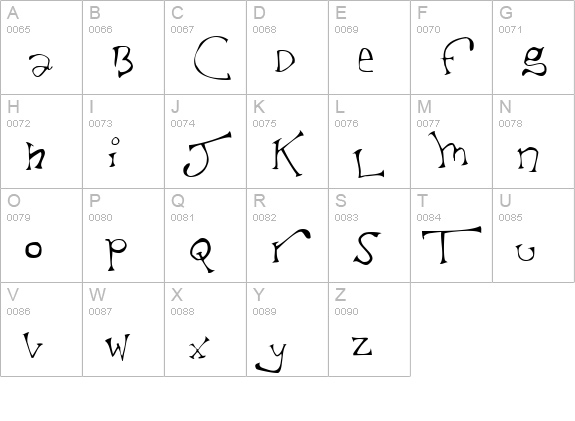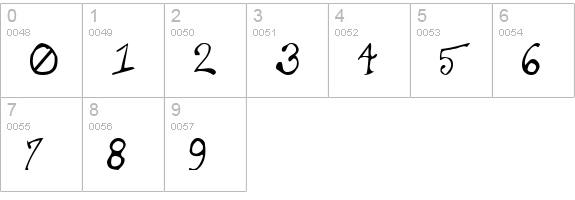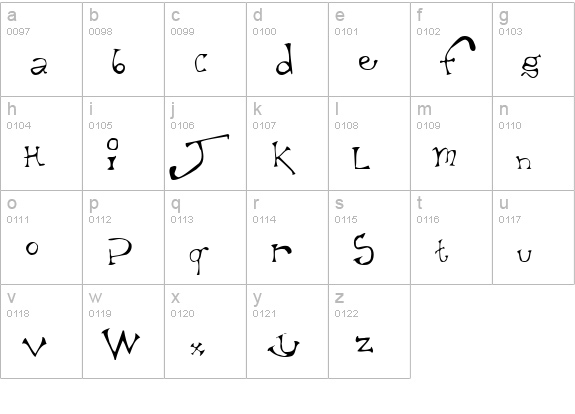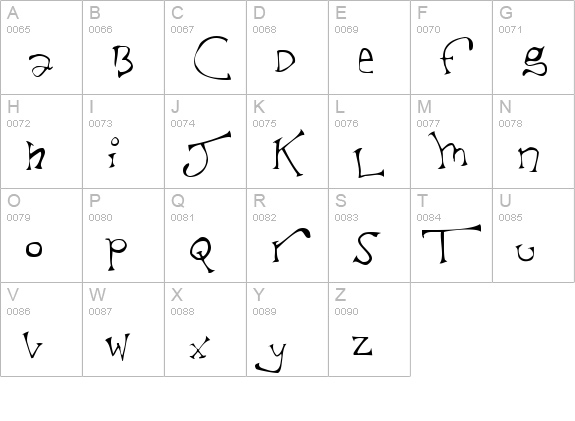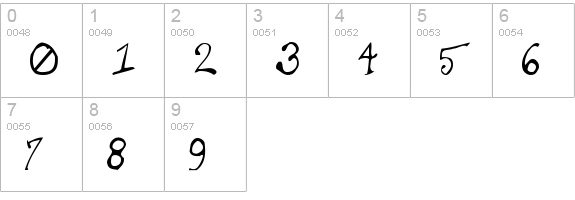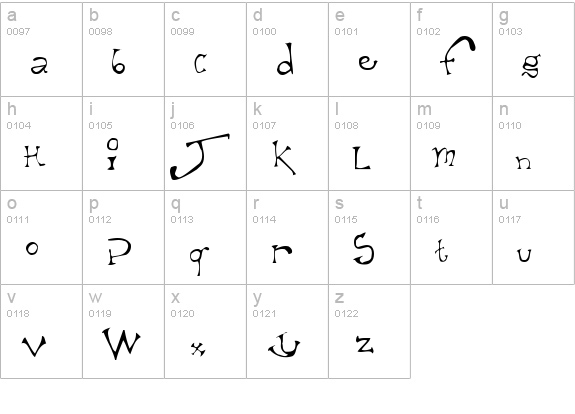
Taxidermist II Font Details
Taxidermist II font is a beautifully crafted typeface that exudes elegance and sophistication. With its intricate details and unique design, this font is perfect for adding a touch of class to any project. The sweeping curves and sharp angles of each letter create a harmonious balance that is pleasing to the eye. One of the best features of Taxidermist II font is that it is free. That's right, you can freely download this stunning font at FontsMarket.com. This means that you can elevate your designs without breaking the bank. Whether you're designing a logo, creating a website, or working on a branding project, Taxidermist II font is a versatile choice that will make your work stand out from the crowd. The versatility of this font is further enhanced by its variety of weights and styles. From bold and impactful to delicate and refined, Taxidermist II font offers a range of options to suit your design needs. It is the perfect choice for headlines, quotes, invitations, and any other project that requires a touch of sophistication. The attention to detail in Taxidermist II font is truly remarkable. Each letter is meticulously crafted to ensure a seamless and professional look. The precise lines and smooth curves create a sense of precision and craftsmanship that is sure to impress. In addition to its stunning design, Taxidermist II font is also incredibly easy to use. It is compatible with all major design software and can be easily installed on both PC and Mac systems. This means that you can start using this beautiful font in your projects right away, without any hassle. With its timeless elegance and free availability, Taxidermist II font is a must-have for any designer or creative professional. Download it today at FontsMarket.com and elevate your designs to new heights.